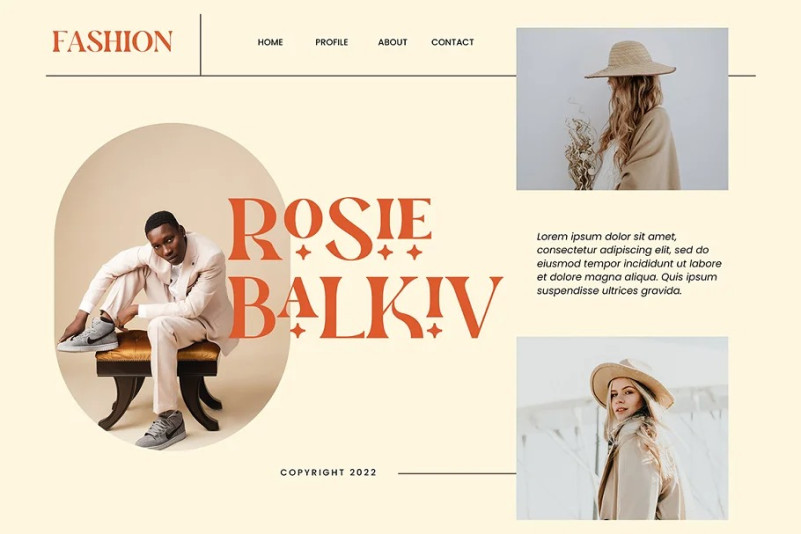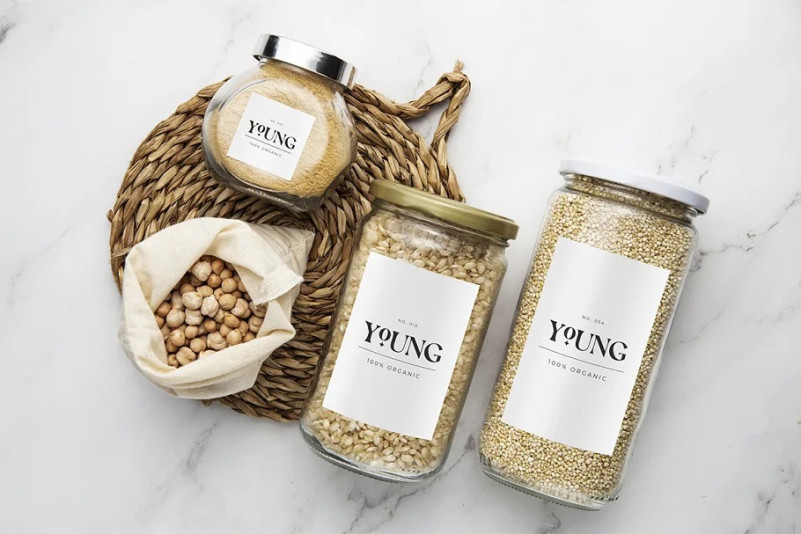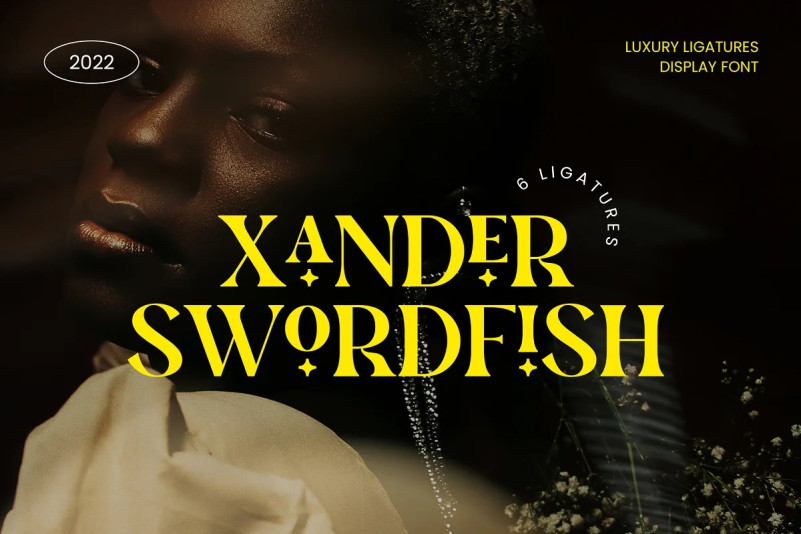
Xander Swordfish Font
Xander Swordfish Font – Ligature Serif Font. Modern Serif font that feels beautiful classy, elegant, and modern. This font is ideally suited for a wide variety of projects, such as signature, stationery, logo, wedding, typography quotes, magazine or book covers, website headers, clothing, branding, packaging design, and more. Also, fashion-related branding or editorial design displays both masculine and feminine qualities.